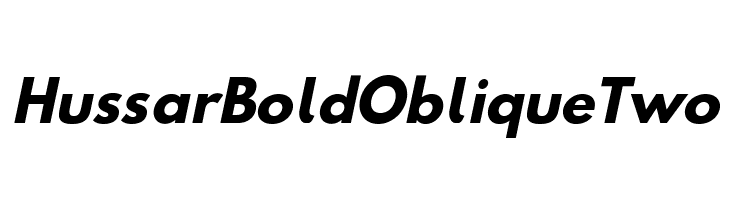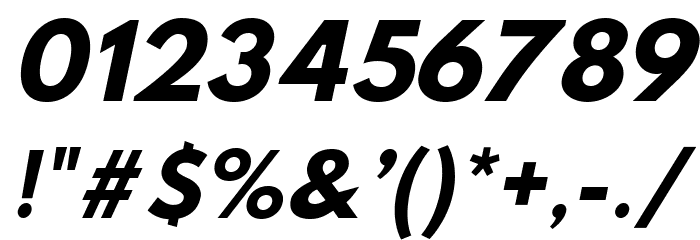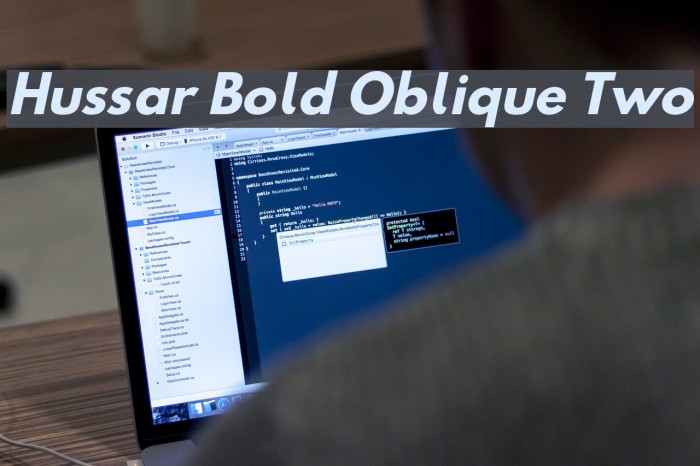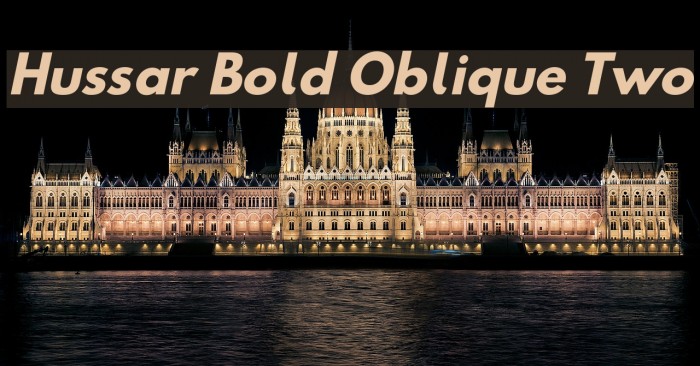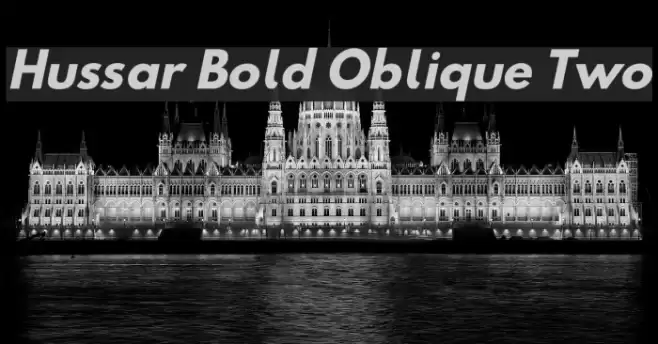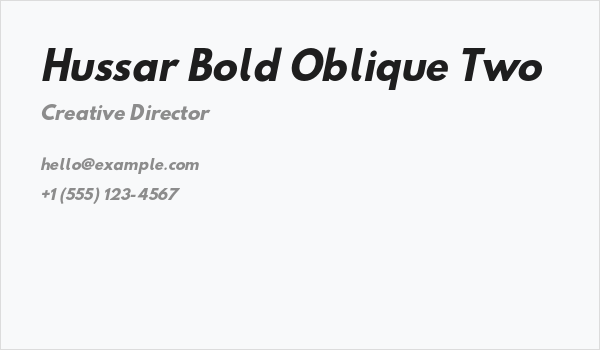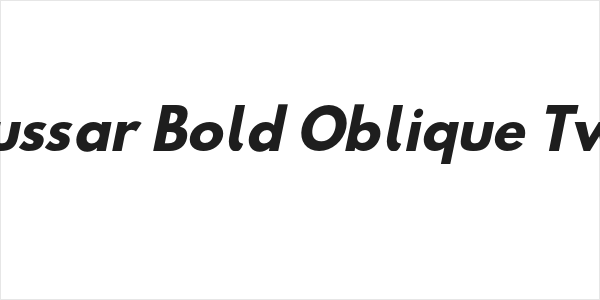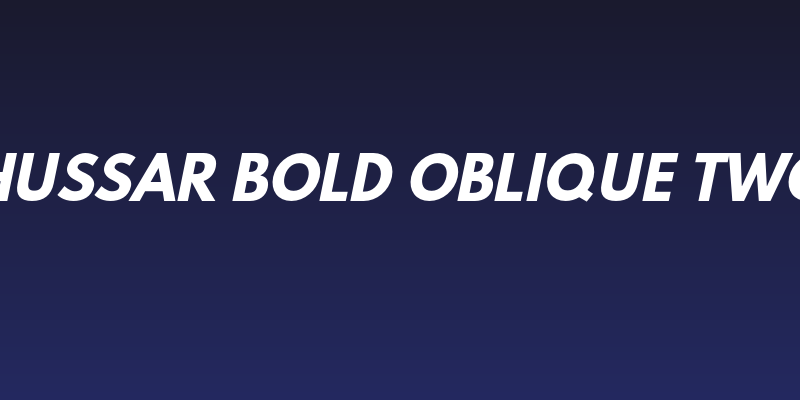
Hussar Bold Oblique Two Font
Hussar Bold Oblique Two Description
This font features a bold and oblique style, characterized by its strong, slanted letterforms that convey a sense of dynamism and forward movement. The uppercase and lowercase letters maintain a consistent weight, providing a uniform appearance across all characters. The numerals and special characters are designed to complement the alphabet, ensuring readability and visual harmony. The overall design is modern and sleek, making it suitable for a variety of applications where a bold statement is desired.